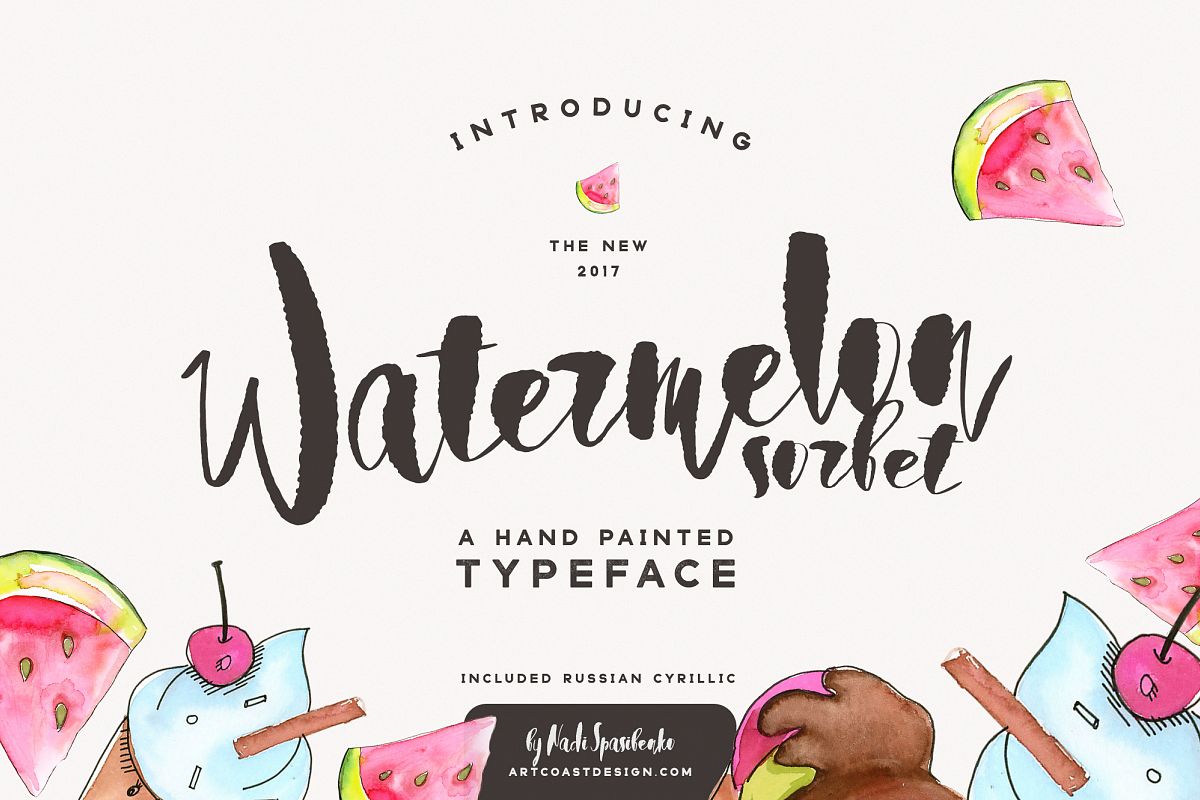
Watermelon Sorbet Brush Script
SUPPORT RUSSIAN CYRILLIC
This summer, bright font is suitable for the design of clothes, mugs and many other products and accessories!!!Also you can create invitations. Ripped texture creates the impression of watercolor paint on embossed paper!